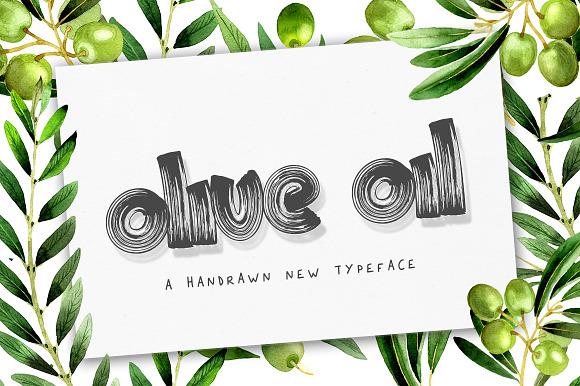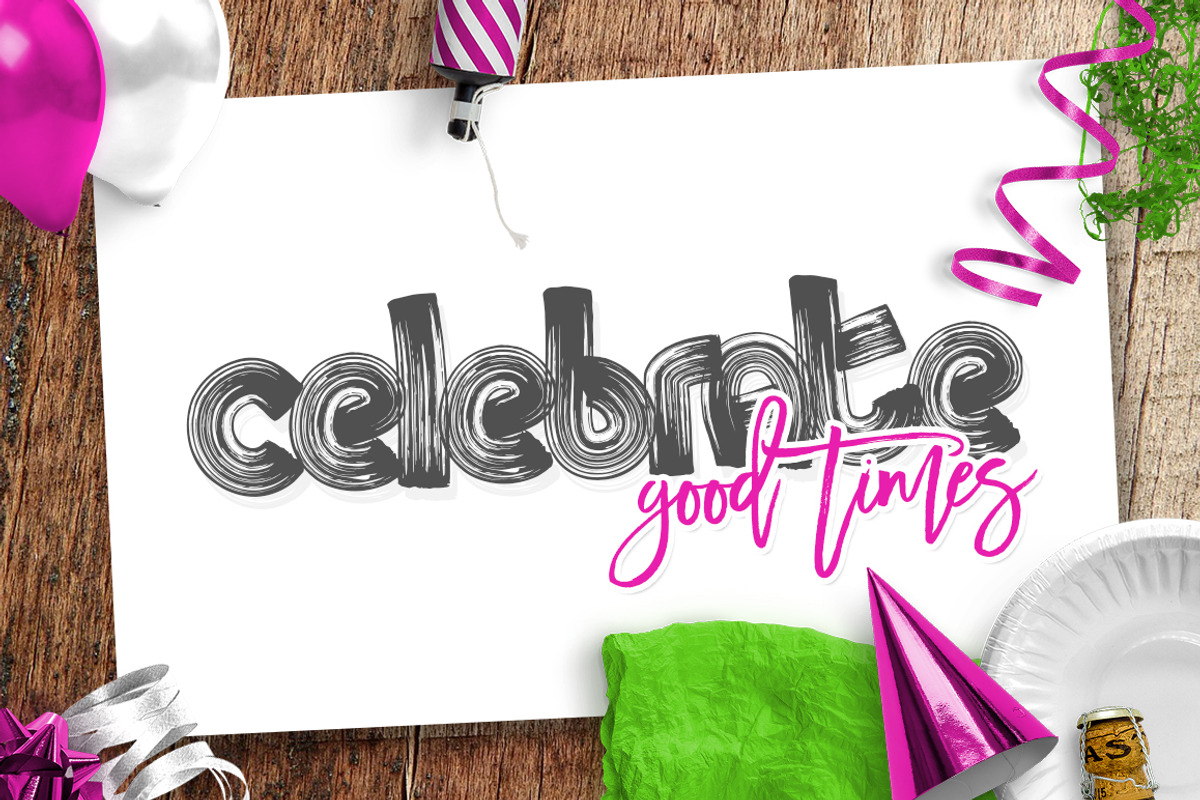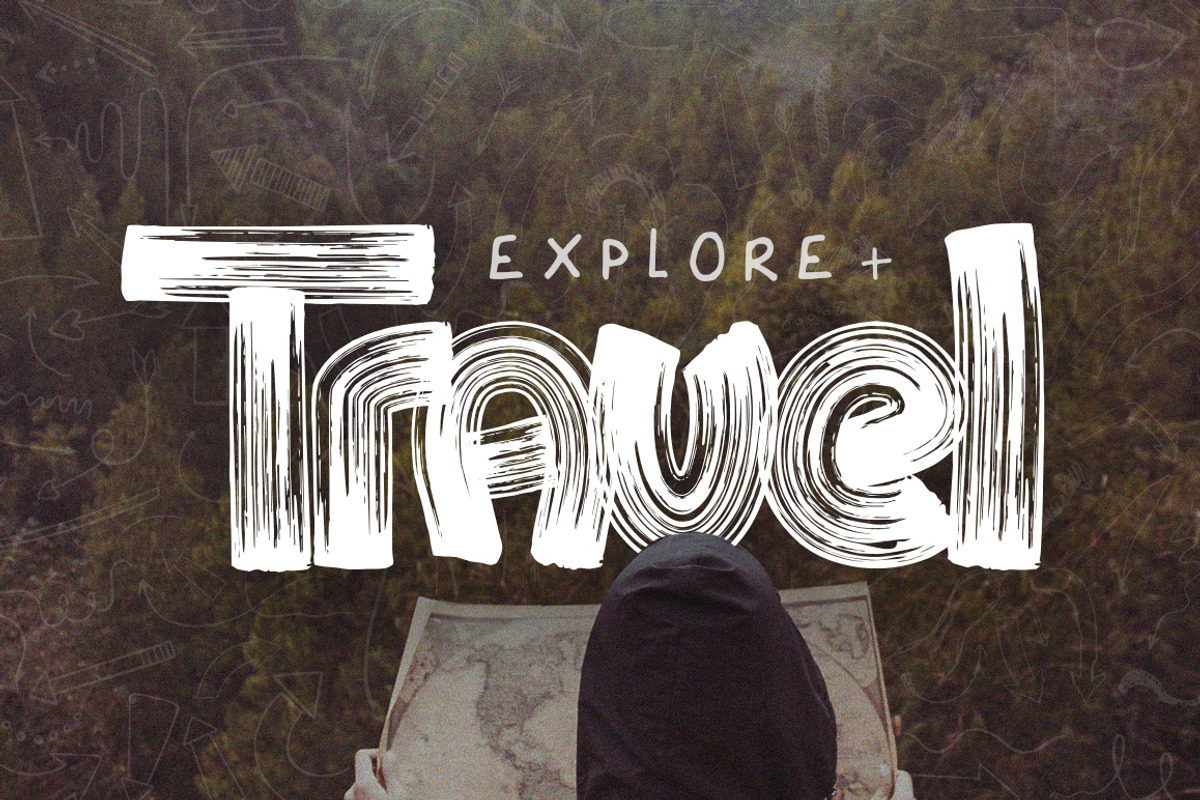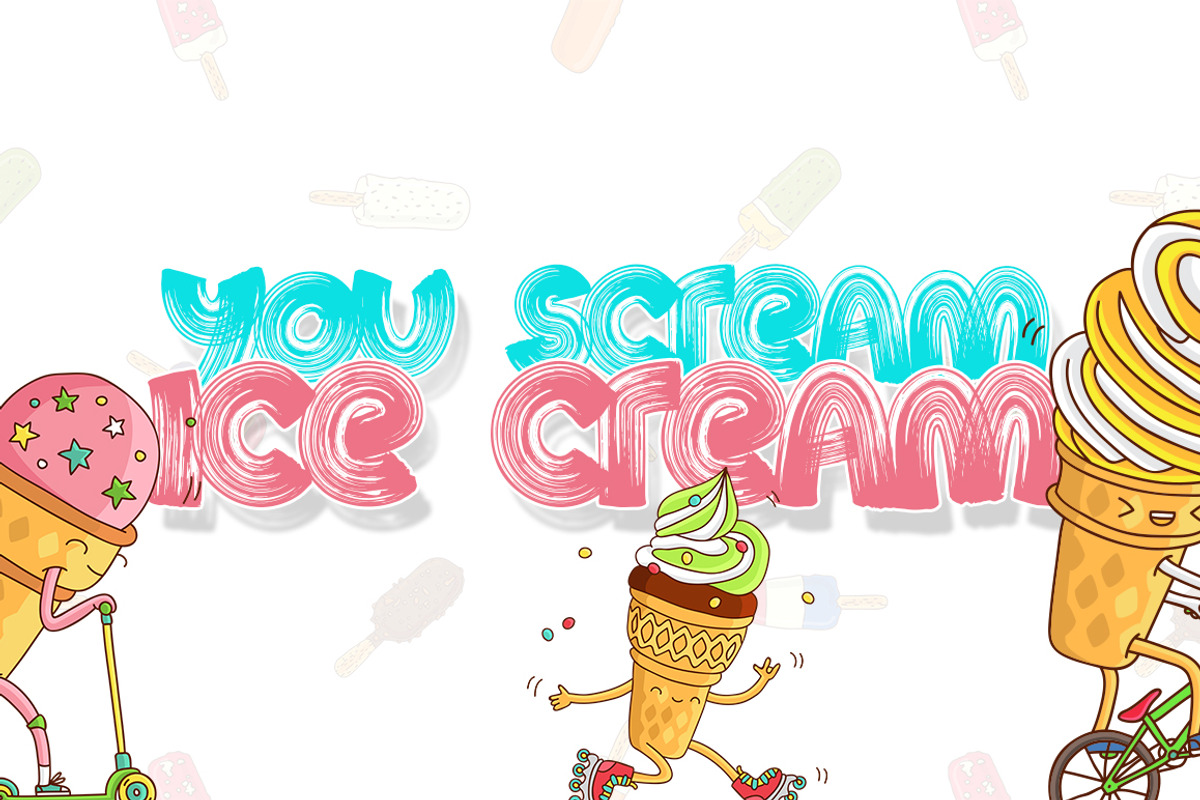
Olive Oil Font (ONLY $9)
Olive Oil is a brand NEW hand brushed style font perfect for adding a little cute to any project. Get your copy for ONLY $9.
Why Olive Oil Font (ONLY $9) is worth a look
Olive Oil Font (ONLY $9) by Salt & Pepper Designs fits naturally into Branding, posters, packaging, typography.